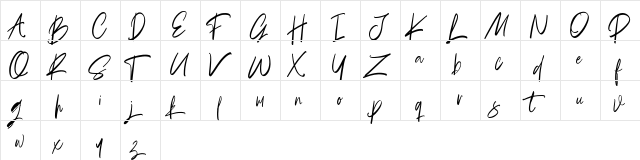
Briliantine Script Demo Regular
| Foundry | Putra Khan Studio |
| Designer | Putra Khan |
Design Context for Briliantine Script Demo Typeface
Briliantine Script Demo flows with the natural rhythm of handwritten lettering, making it ideal for designs that call for warmth and personal expression.
Font Pairing: Combine Briliantine Script Demo with a simple geometric sans for maximum contrast — the tension between flowing curves and clean structure is a classic typographic pairing.
Pro Tip: Use Briliantine Script Demo for short runs of text — names, titles, or taglines. Extended body copy in script faces tires the eye quickly.